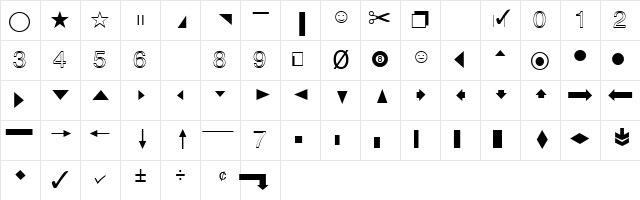
QuickType Pi Regular Free Font
QuickType Pi Regular
Design Context for QuickType Pi
QuickType Pi is a composed and adaptable typeface that performs quietly and consistently across a wide range of design contexts.